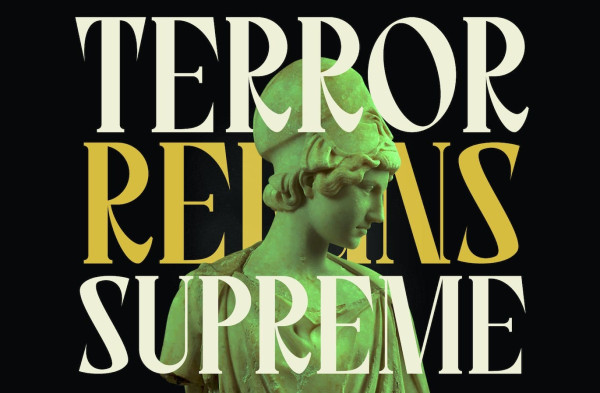
Soul Ozees Font
Soul Ozees Font – Modern Font is a bold and authentic display font. The font is suitable for any branding project like logo, Template Design, Product and many more. outstanding in a wide range of contexts.